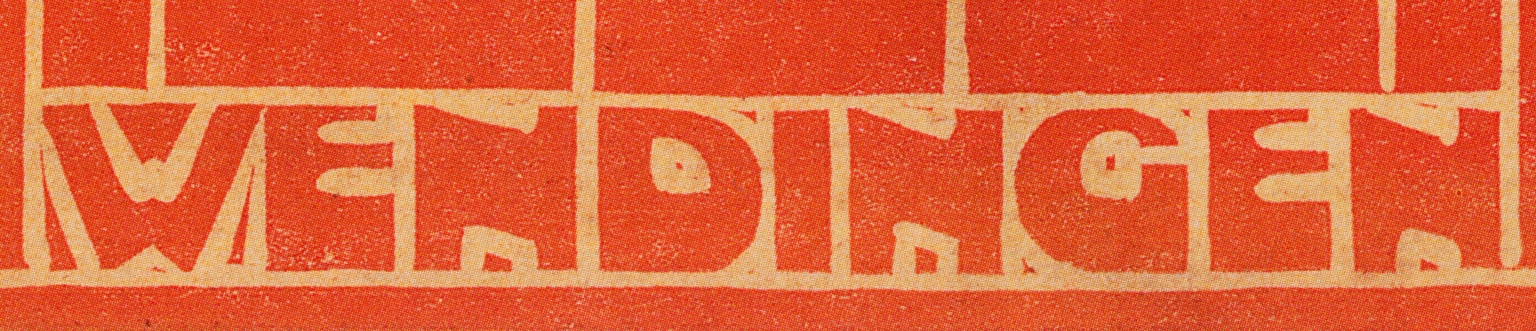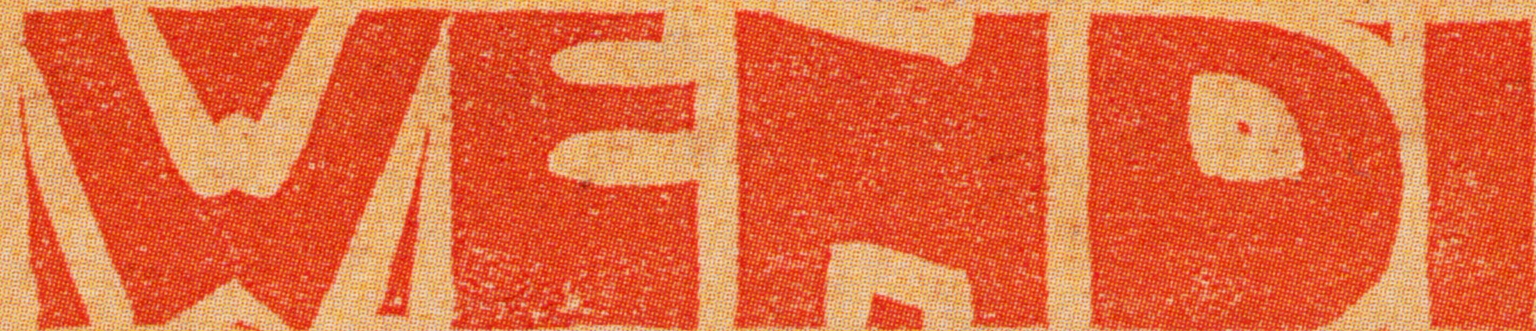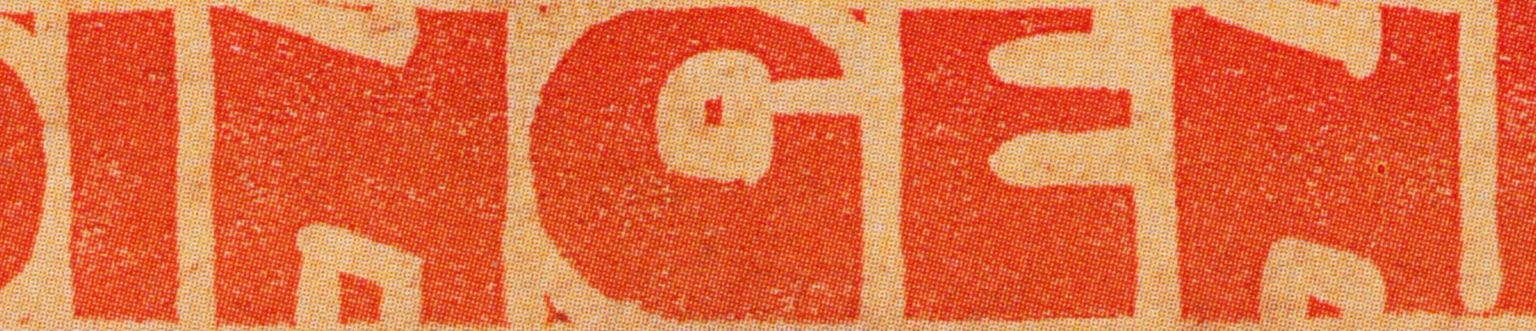
Weng
Weng is a display typeface designed by Jolana Sýkorová, inspired by the a lettering on the cover of the September 1920 edition of Wendingen, the influential Dutch architecture and art magazine associated with the Amsterdam School. The cover—a woodcut by sculptor and architect H.A. van den Eijnde—is a good example of expressive, architectonic typography where letterforms feel carved rather than drawn, reflecting the sculptural spirit of the movement.
With Weng, Sýkorová translates this modest lettering into a functional digital typeface while preserving its angular tension, ornamental structure, and rhythmic density. The result is a bold and evocative typeface ideal for posters, museum publications, websites and visual identities that seek to channel the experimental energy of early 20th-century modernism.
More than a revival, Weng is a fresh new font that pays tribute to the rich typographic imagination of the Amsterdam School and to Wendingen’s enduring legacy as a platform for radical design.